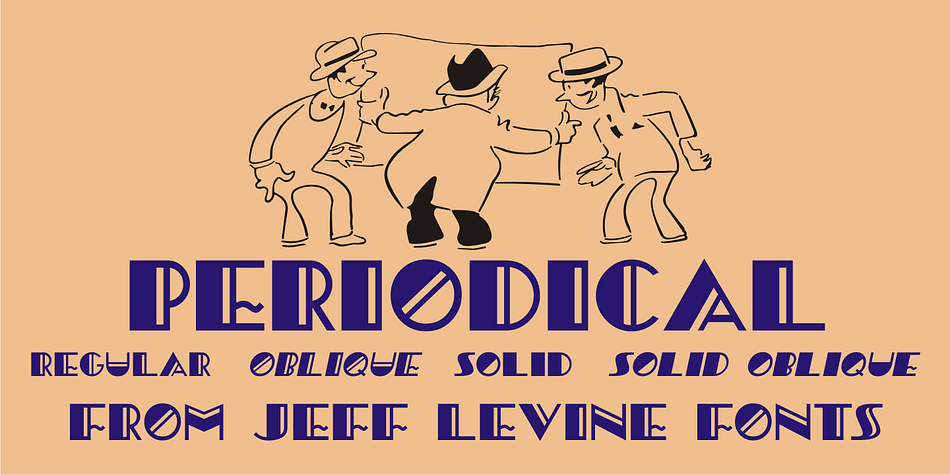
Periodical JNL is a art deco font family. This typeface has four styles and was published by Jeff Levine Fonts.
Periodical JNL is based on one the many stylized titles from the cover of the 1920s Spanish magazine “Nuevo Mundo” (New World). Each cover displayed a beautiful piece of period artwork along with the magazine’s name in different lettering styles of the time (Art Nouveau and early Art Deco).
The original design features an “engraved” look and now has an oblique counterpart. Also available are solid versions (without the inside lines) in both regular and oblique styles.